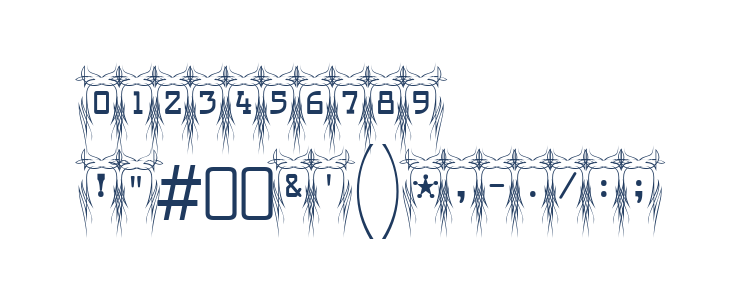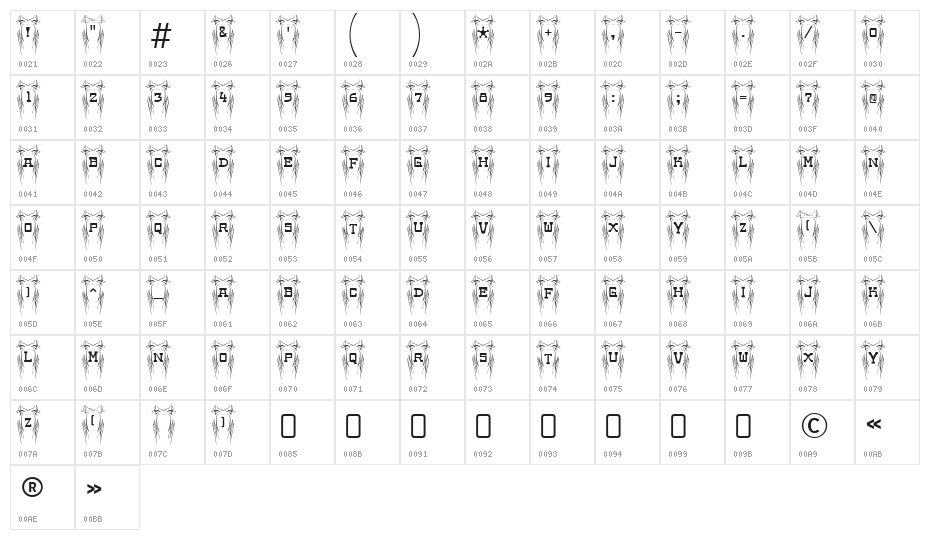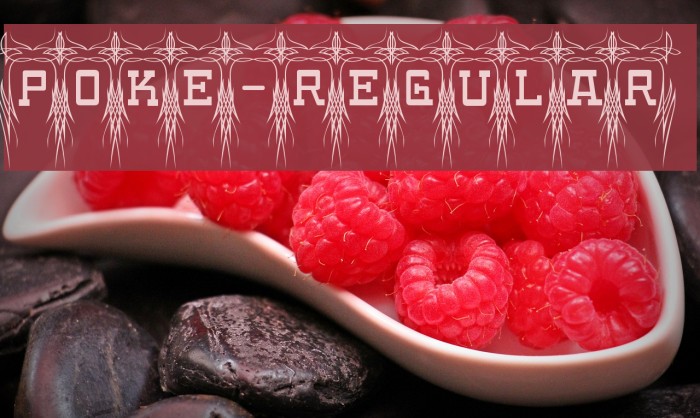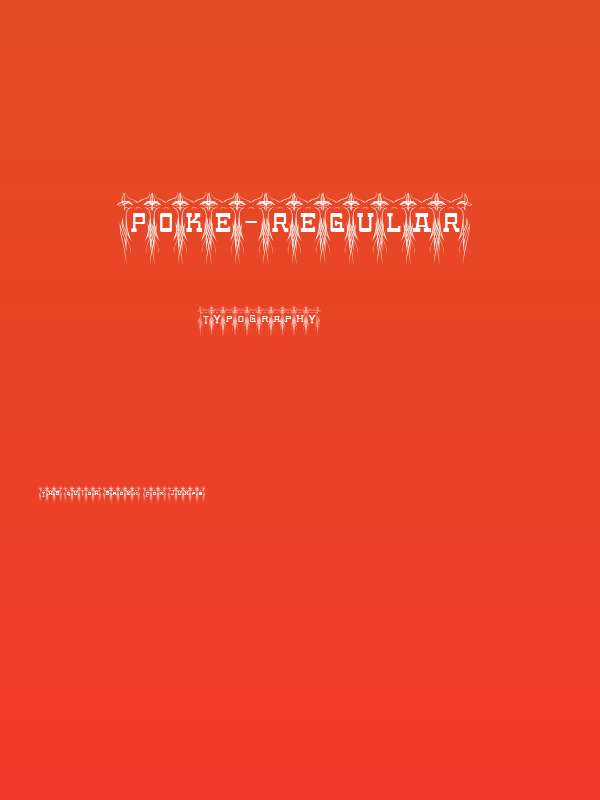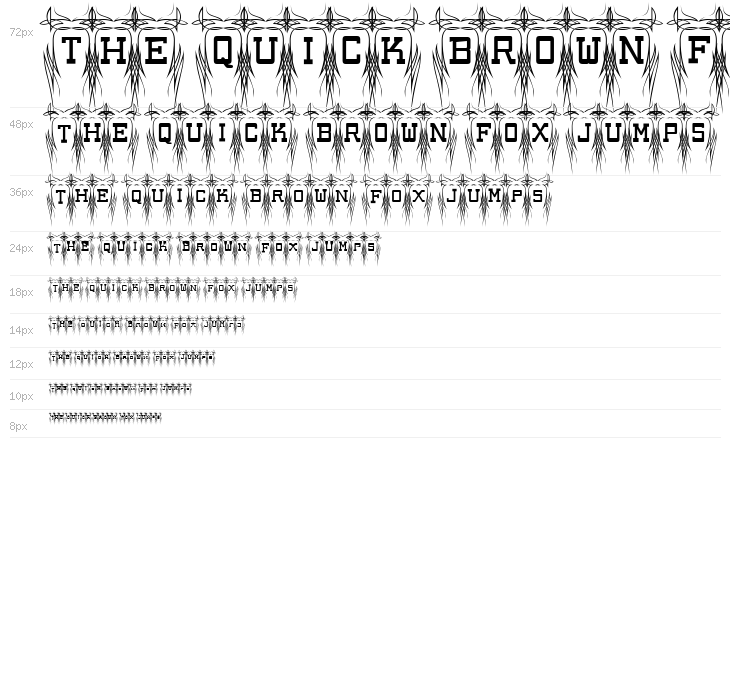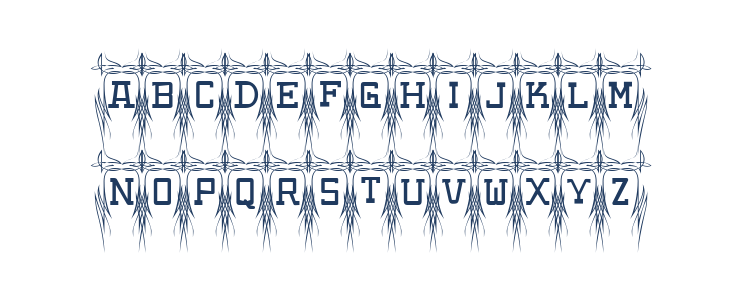
Poke-Regular Font
| Stile generale | Modern, Decorative |
| Progetti proposti | Ideal for projects that require a bold statement, such as posters, album covers, or branding for edgy or alternative brands. |